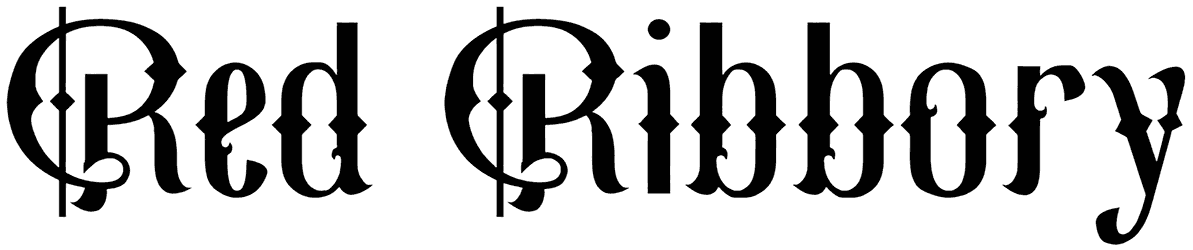
Red Ribbory Font
Today, we want to introduce you to Red Ribbory, a bold retro font that brings a vintage, upscale feel. It comes in 4 versions and will make your project look valuable and pricey without any doubt. Red Ribbory font works really well for designing movie posters, wedding invitations, apparel printings, drinking logos, and background overlays.